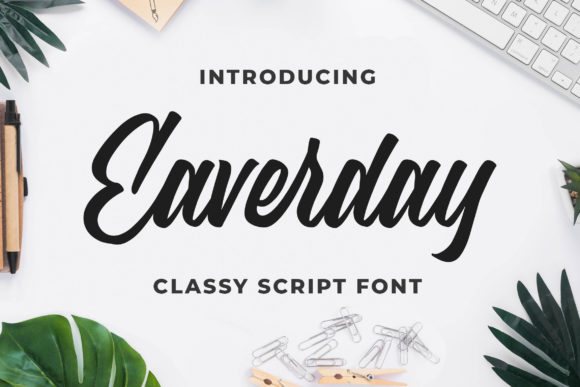
Embrace the beauty of written words with Eaverday Font, a captivating script font that exudes elegance and charm. Crafted with precision by Blankids Studio, Eaverday is designed to amplify the allure of your creative endeavors.
Unleash your imagination and experience the versatility of Eaverday Font. Dive into a world of possibilities, from creating heartfelt greeting cards that express your deepest emotions to crafting eye-catching headlines that leave a lasting impression. With its timeless appeal, Eaverday Font adds a touch of romance and sophistication to any project, making it an essential tool for discerning designers and typography enthusiasts.
Step into a world of limitless creativity with Eaverday Font and let your words dance across the page with undeniable grace. Its expressive curves and delicate flourishes lend a touch of elegance to any design, captivating your audience and leaving them spellbound. Whether you're a seasoned designer or just starting your creative journey, Eaverday Font is the perfect companion for your artistic expressions.
Don't settle for ordinary fonts that blend into the background. Choose Eaverday Font and let your words take center stage. Its unique charm and magnetic presence will elevate your designs to new heights, leaving a lasting impression on all who encounter them. Experience the magic of Eaverday Font today and unlock the true potential of your creative vision.